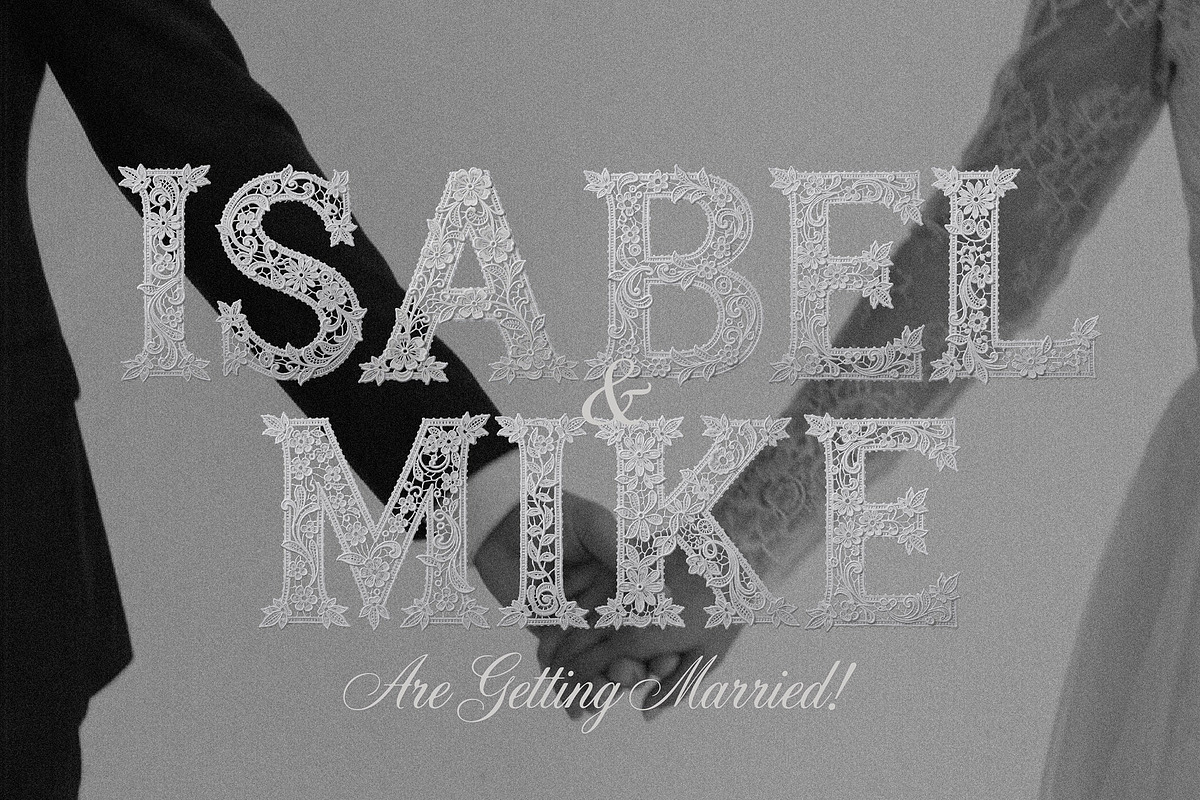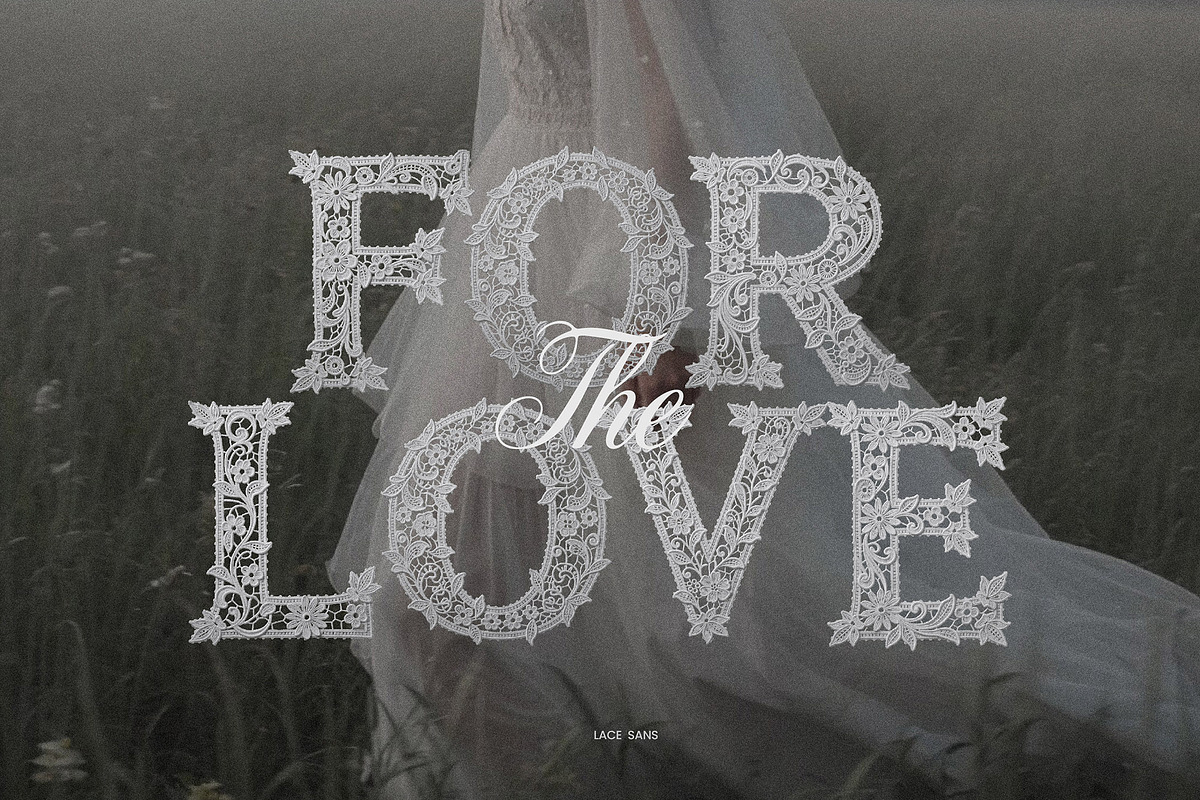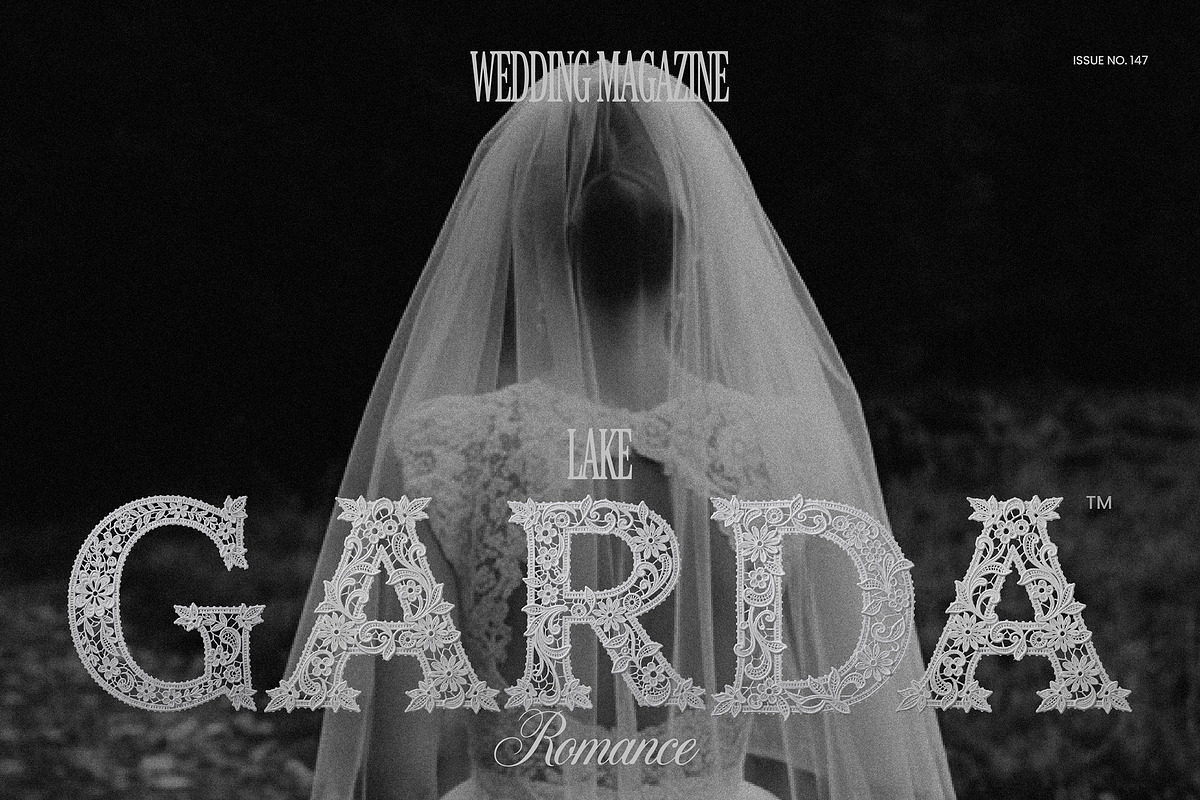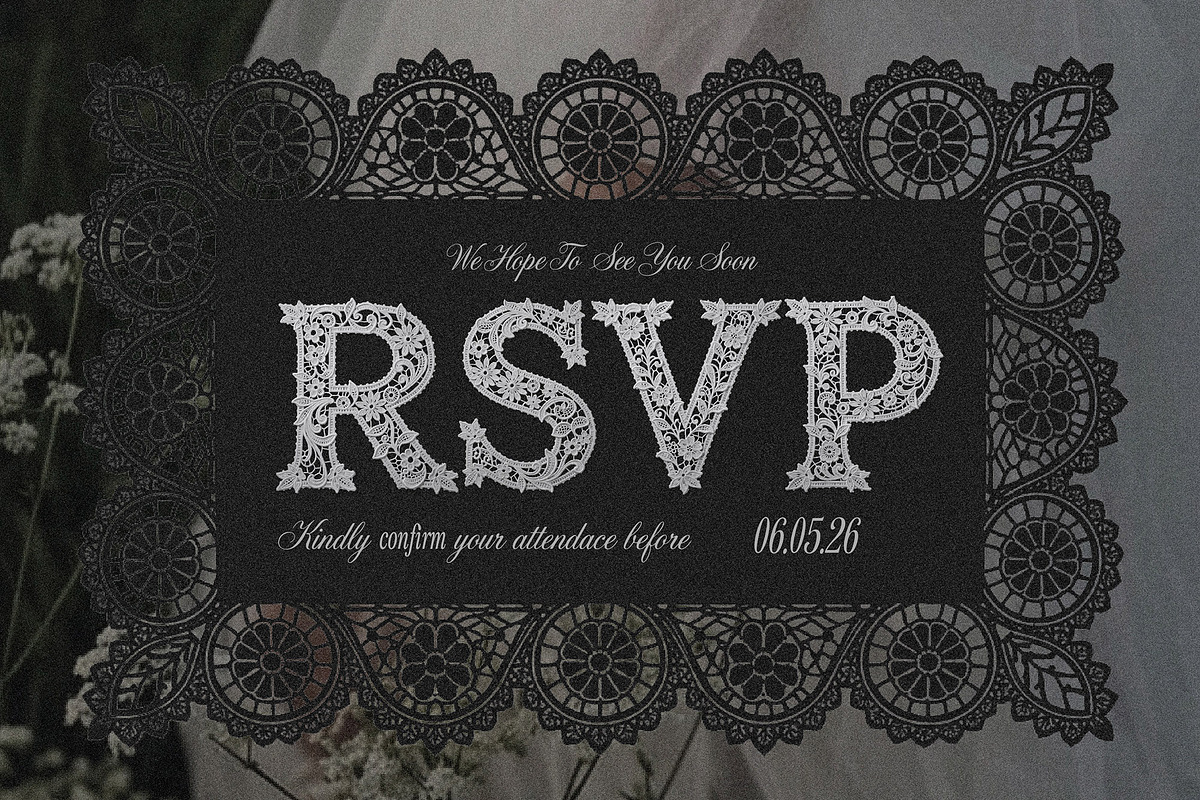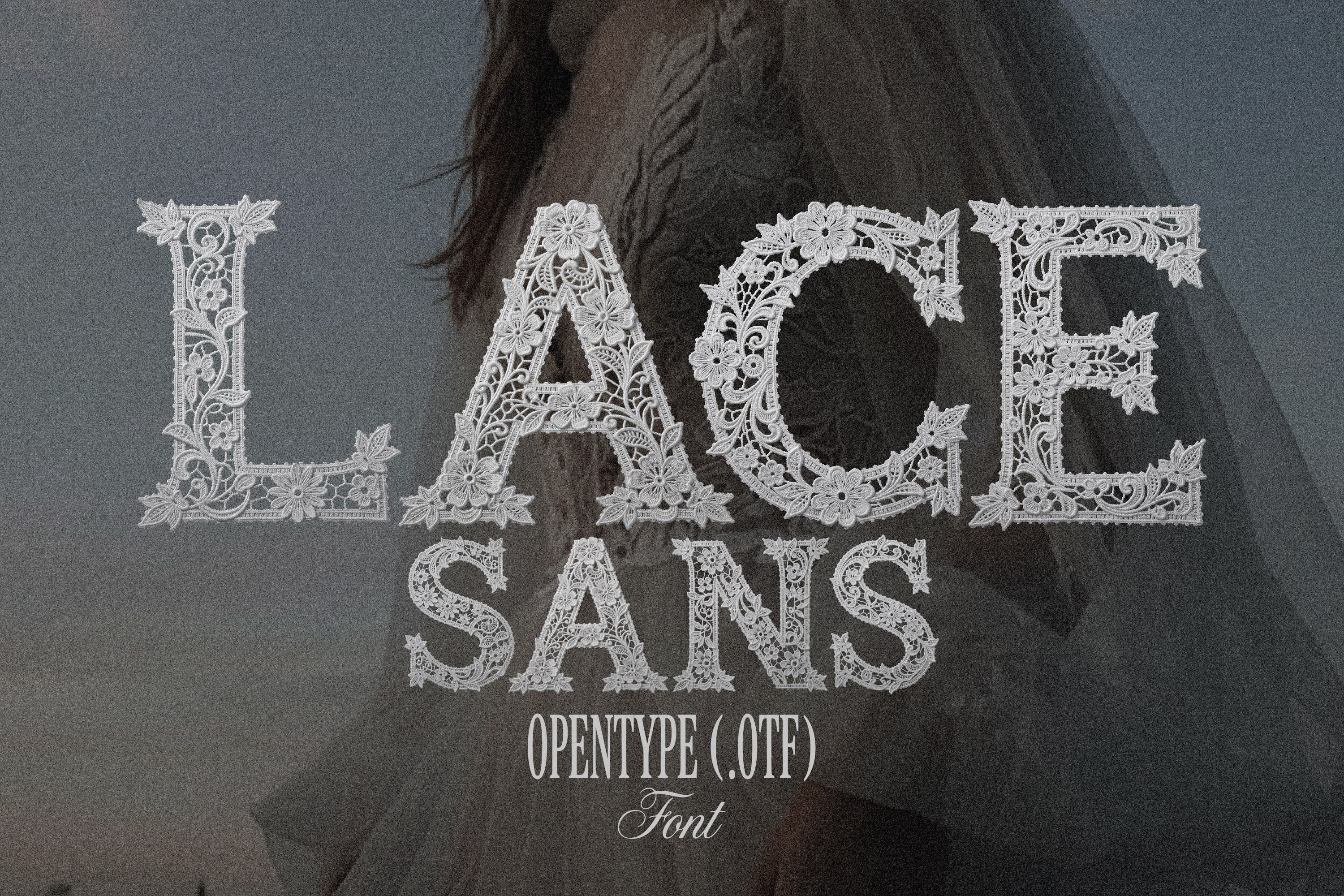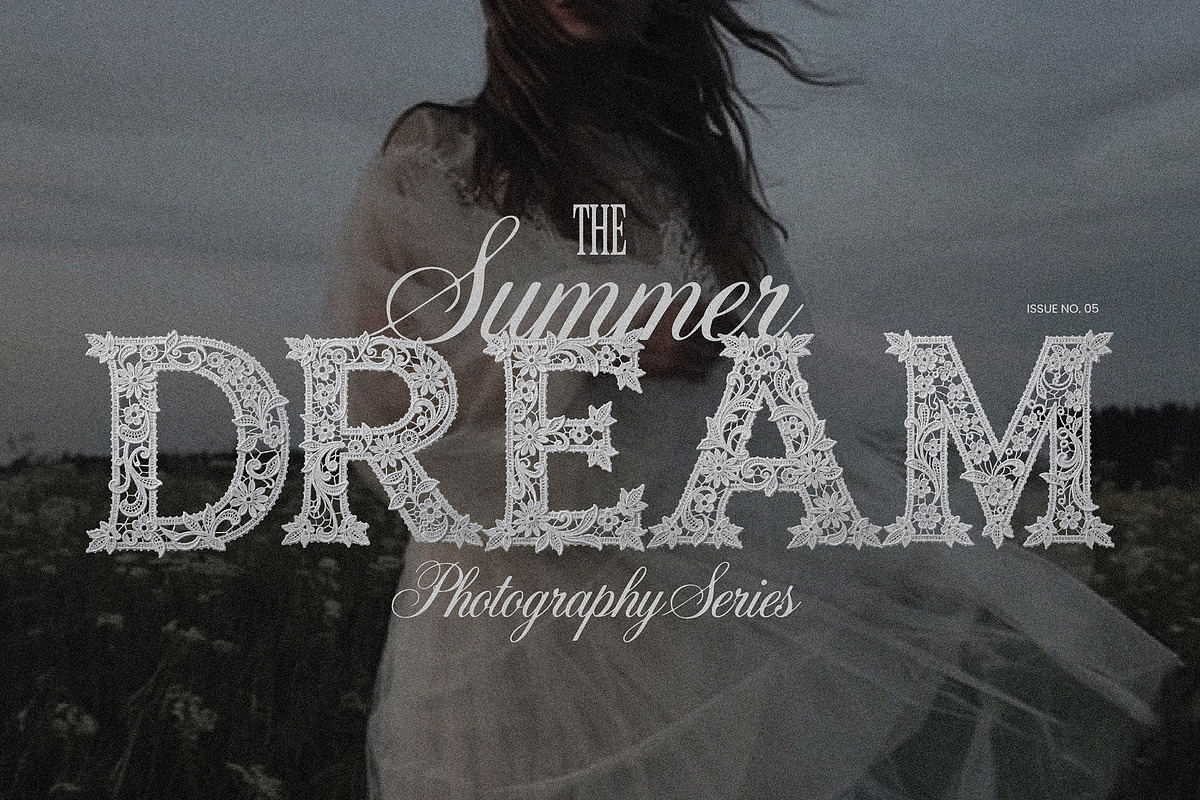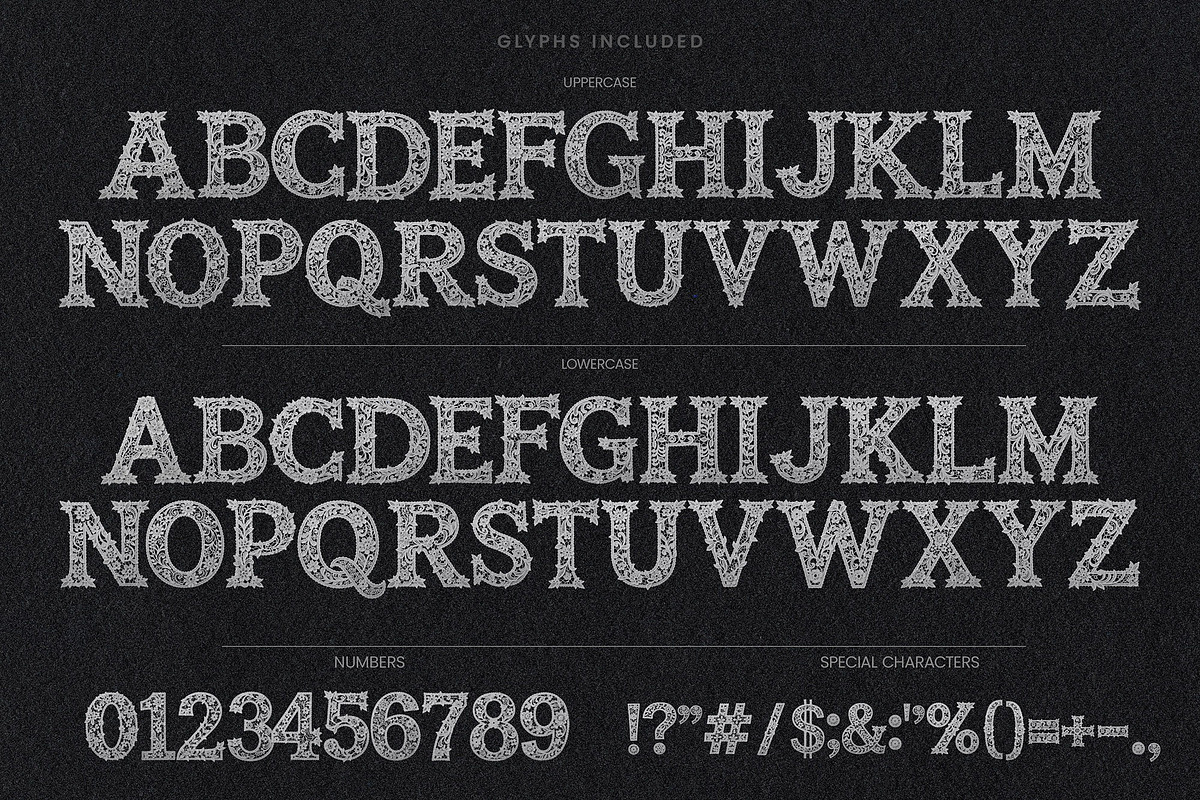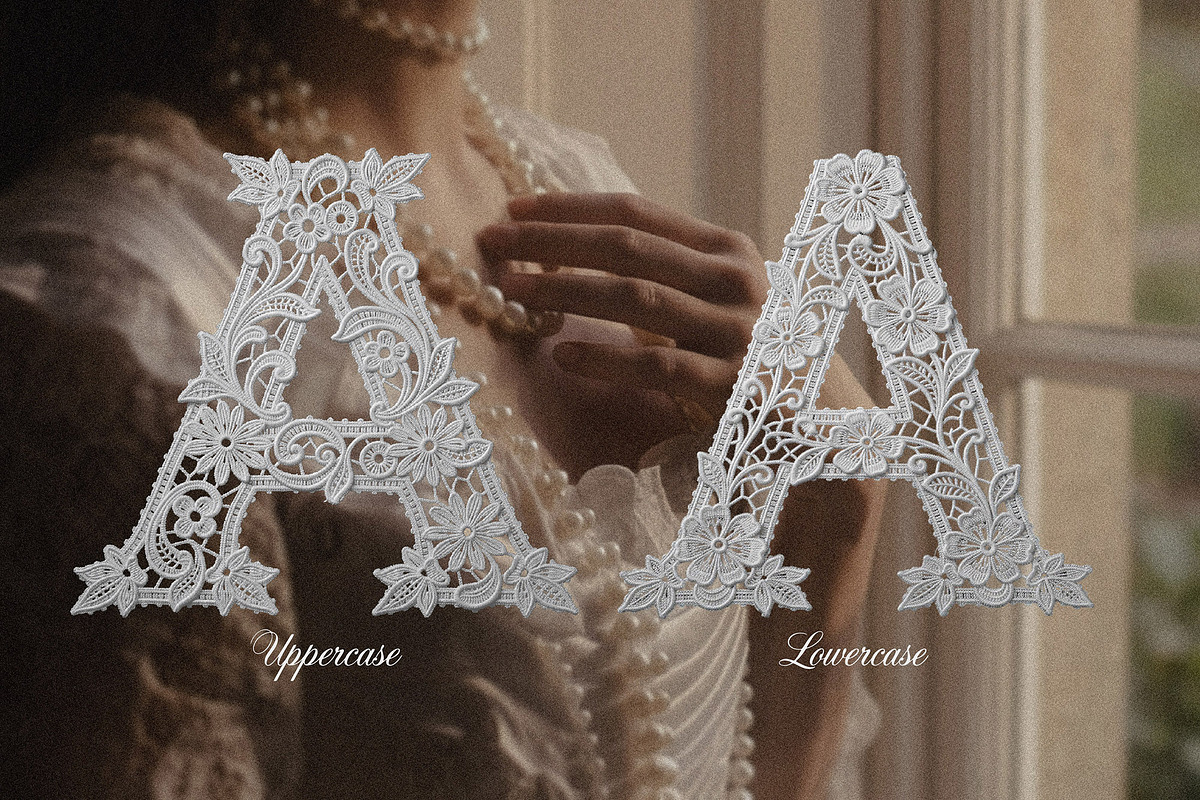
Lace Sans - Elegant Wedding Font
Lace Sans is a detailed display font designed to mimic the delicate artistry of real embroidery. Every letter is crafted with woven threads, floral motifs, and the airy texture of vintage lace. Unlike standard fonts, Lace Sans provides a tactile, dimensional look that jumps off the page, making it perfect for designs that require a soft, romantic, and luxurious aesthetic.
Whether you are designing for a rustic barn wedding, a classic cathedral ceremony, or a vintage-inspired event, this font is for you!
- Wedding Monograms: Create a stunning "A & B" monogram for the couple to use on everything from napkins to the dance floor gobo light.
- Save the Dates: Let the font be the hero image. A simple "SAVE THE DATE" in this font requires no other graphics to look complete.
- Book Covers: Perfect for romance novels, botanical guides, or fantasy fiction titles that need an enchanted forest vibe.
- Boutique Branding: Ideal for florists, organic skincare lines, or artisanal candle companies looking for a logo that feels earthy yet luxurious.
- Table Numbers: Print large, single letters or numbers (e.g., "Table One") on textured cardstock for an elegant centerpiece.
- Event Signage: Beautiful for "Welcome," "Cards & Gifts," or "Seating Chart" headers at rustic or garden-themed events.